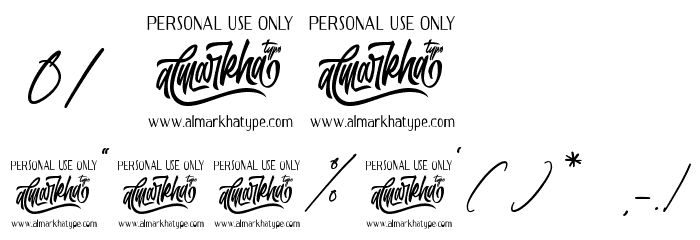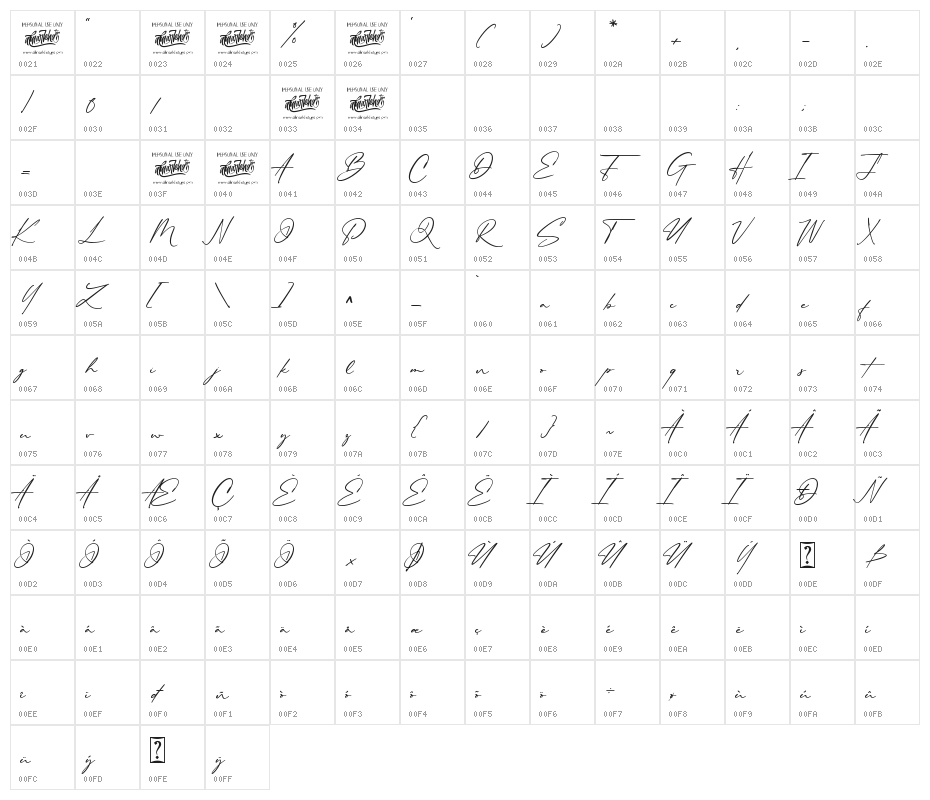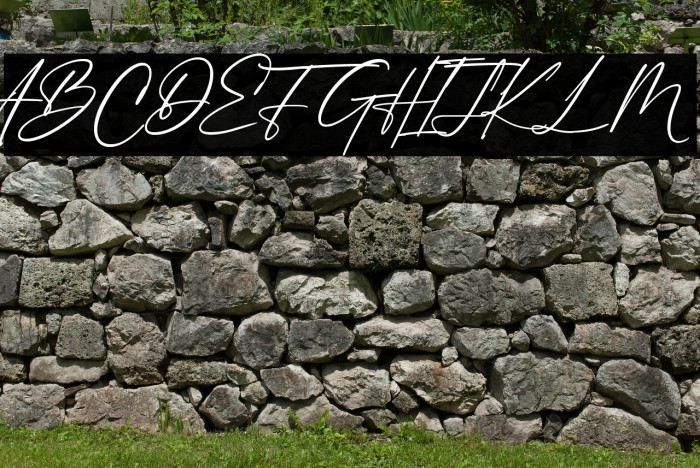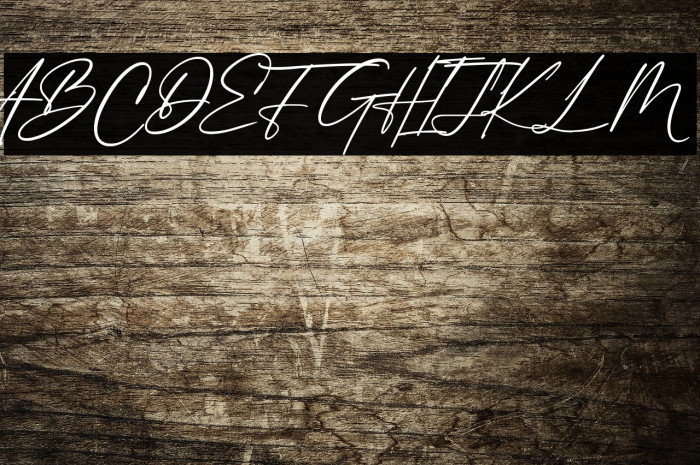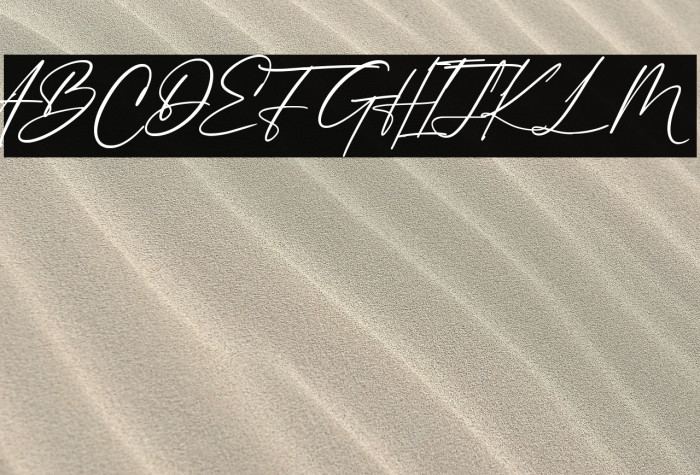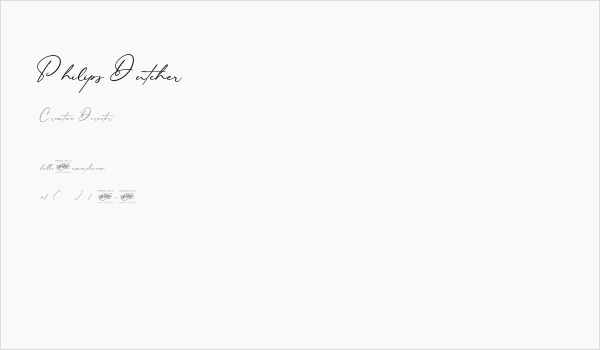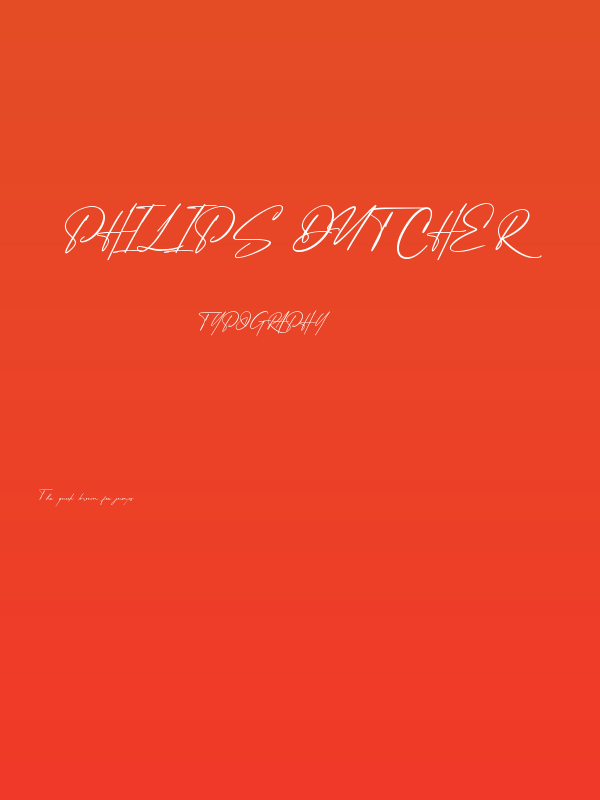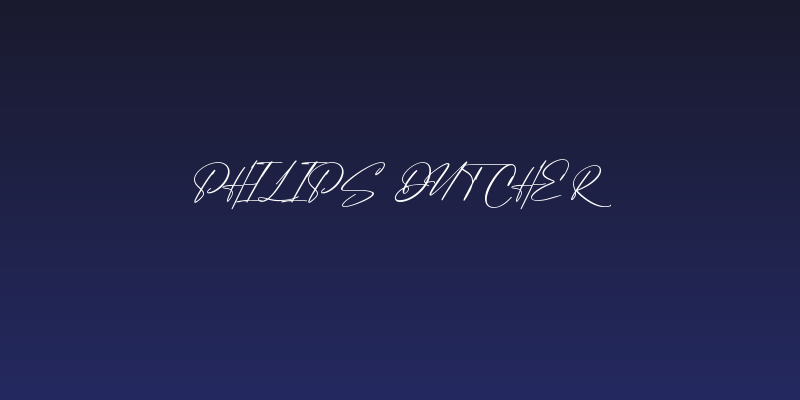
Philips Dutcher Font
Philips Dutcher Description
This font exhibits a flowing, cursive style with elegant, elongated strokes that give it a sophisticated and artistic appearance. The uppercase letters are particularly striking, with sweeping lines and loops that convey a sense of movement and grace. The lowercase letters maintain this fluidity, offering a consistent and harmonious look across the alphabet. The numerals and special characters are crafted with the same attention to detail, ensuring they blend seamlessly with the letters. This font is ideal for projects that require a touch of elegance and creativity, such as invitations, branding, and artistic designs. Its unique style makes it stand out, while still being legible and functional.
| Use Case | Logos, Headlines, Artistic designs |
| Proposed Projects | Ideal for invitations, branding, artistic designs, and any project requiring elegance. |